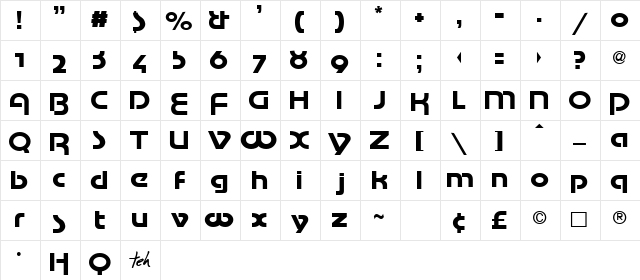
Mottek Normal
Design Context for Mottek Typeface
Mottek offers clean, dependable letterforms without strong stylistic allegiance, making it a practical choice for designers who need flexibility.